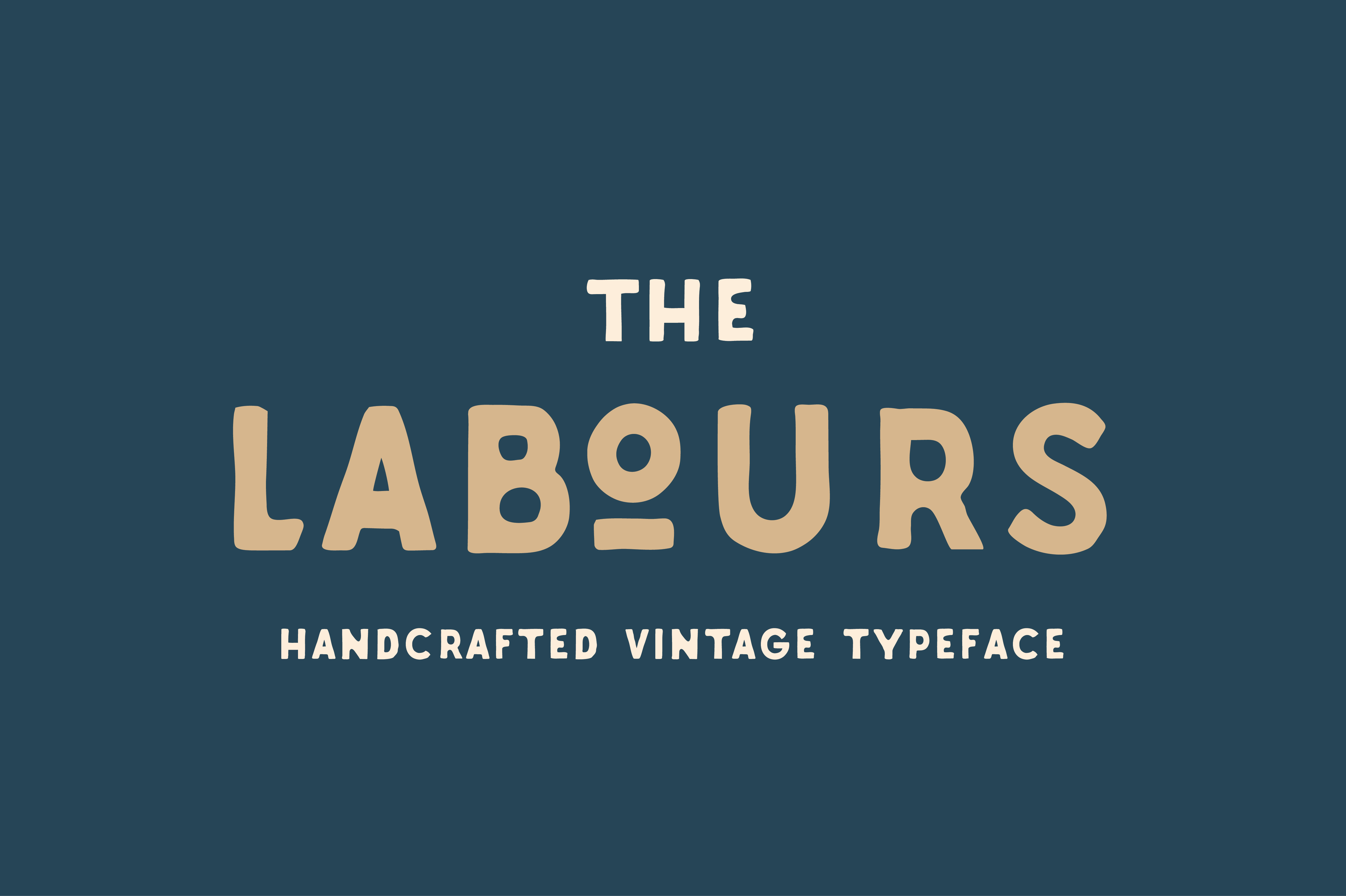
Labours Handcrafted Typeface
Labours is a bold strong handcrafted typeface, designed for any vintage purpose. suitable for Posters, Logotype, T-Shirt design, and many other vintageous design!
Font with Features :
- Proportional Lining
- Proportional OldStyle
- Tabular Lining
- Tabular OldStyle
- Fractions